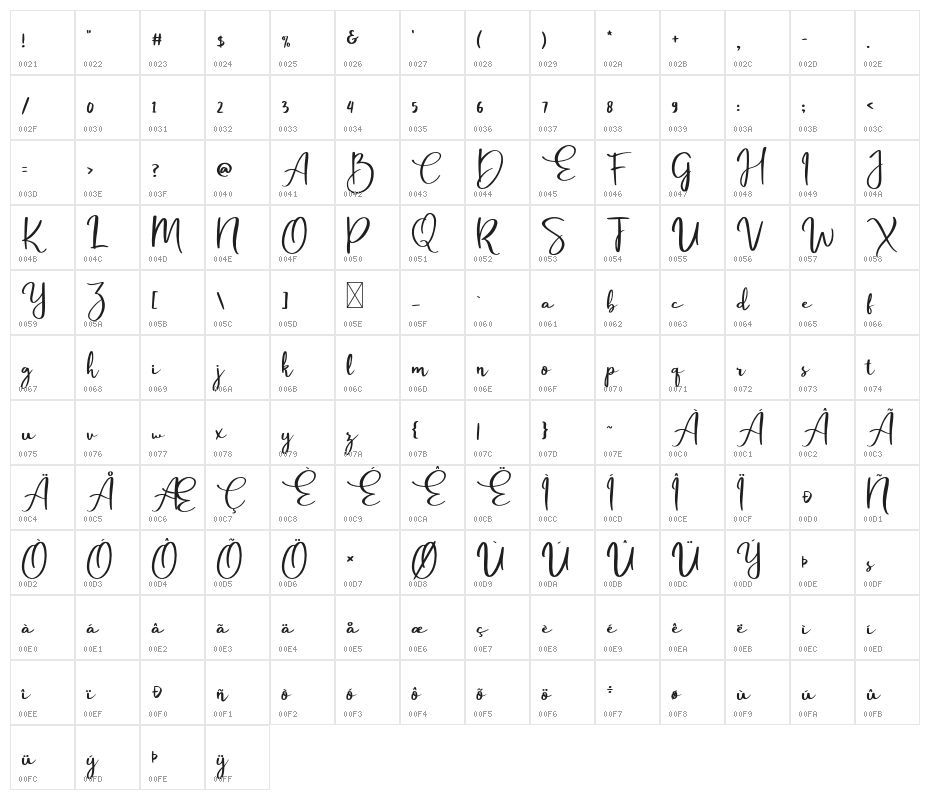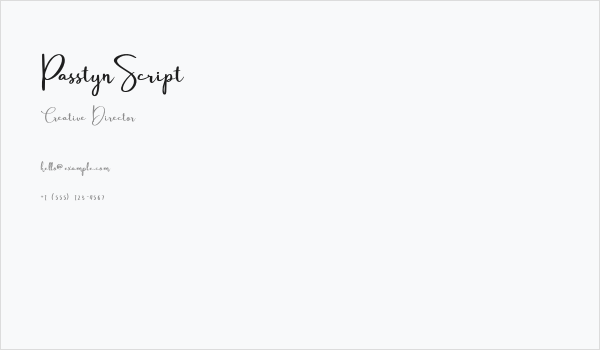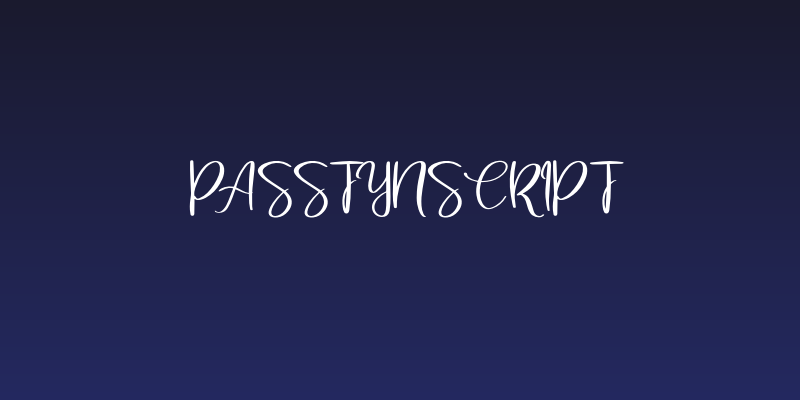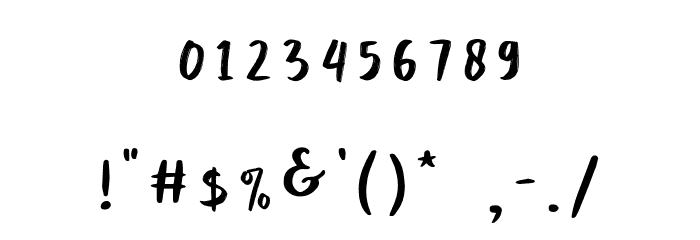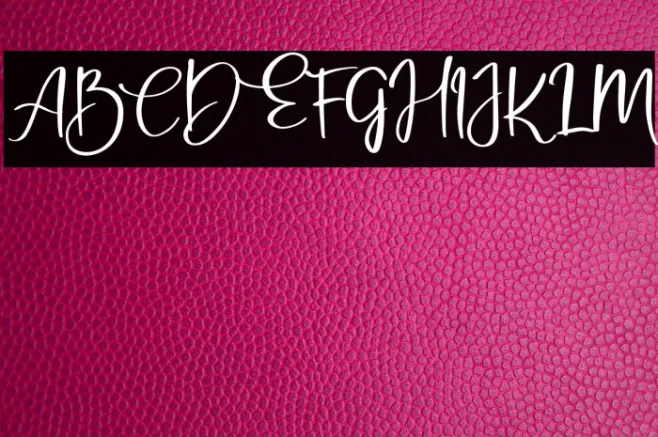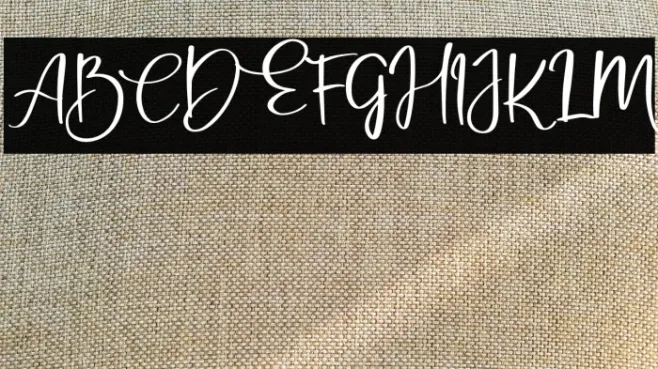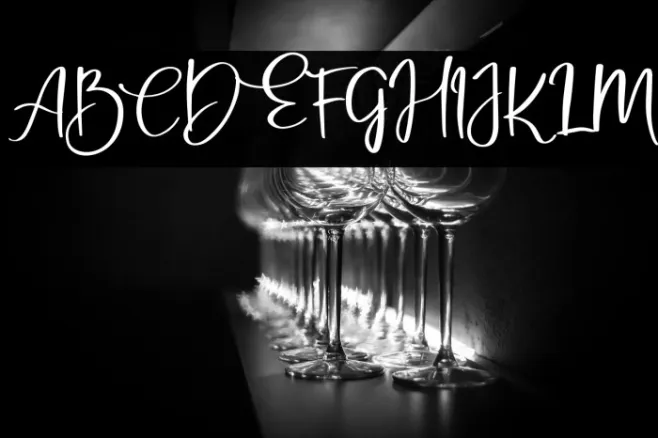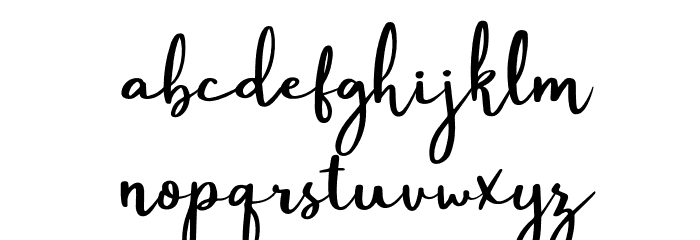
PasstynScript Font
PasstynScript Description
This font exhibits a lively and flowing script style, characterized by its elegant and fluid letterforms. The uppercase letters are particularly ornate, with sweeping curves and loops that give a sense of motion and grace. The lowercase letters maintain a consistent style, with smooth connections between characters, enhancing its cursive nature. The numerals and special characters are designed to complement the overall aesthetic, maintaining the same fluidity and elegance. This font is ideal for projects that require a personal and artistic touch, such as invitations, greeting cards, or branding materials.
| Proposed Projects | Ideal for wedding invitations, greeting cards, branding, and artistic projects. |